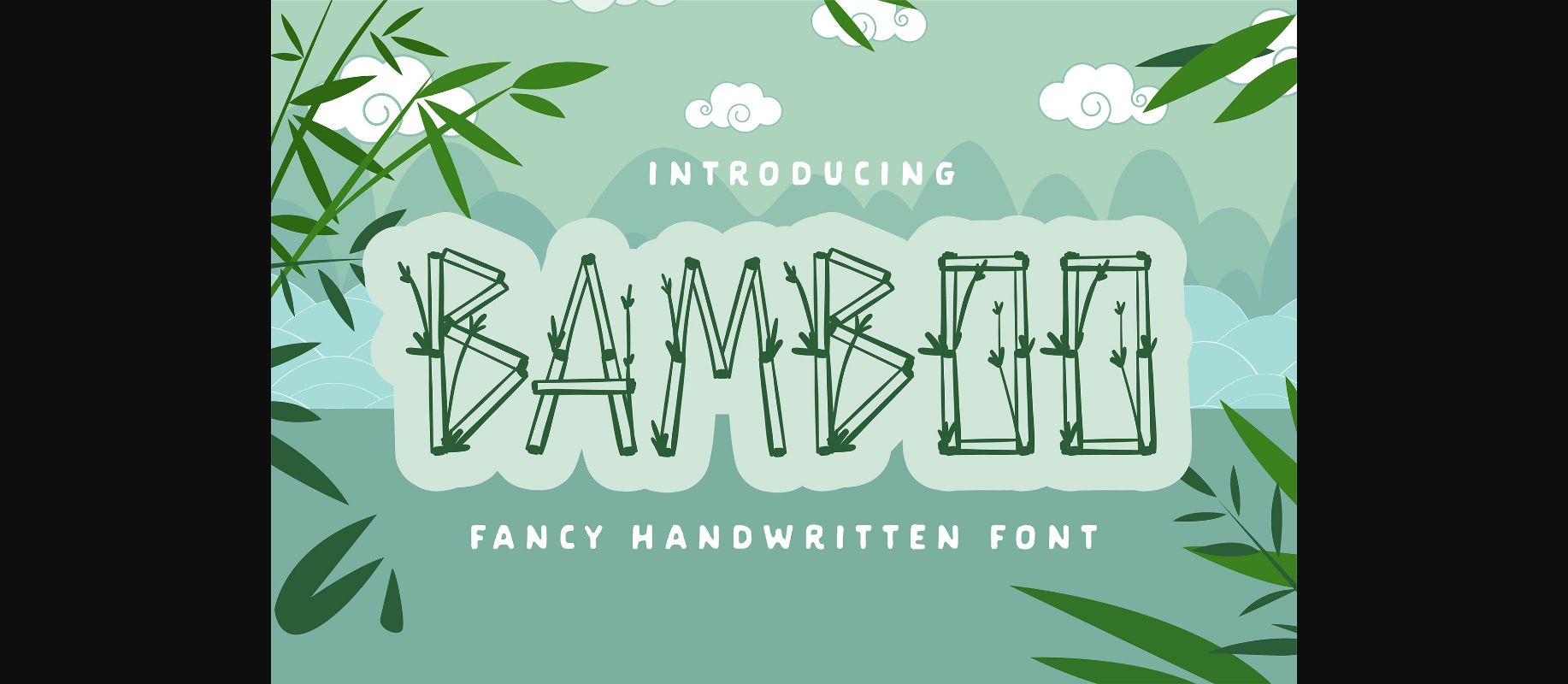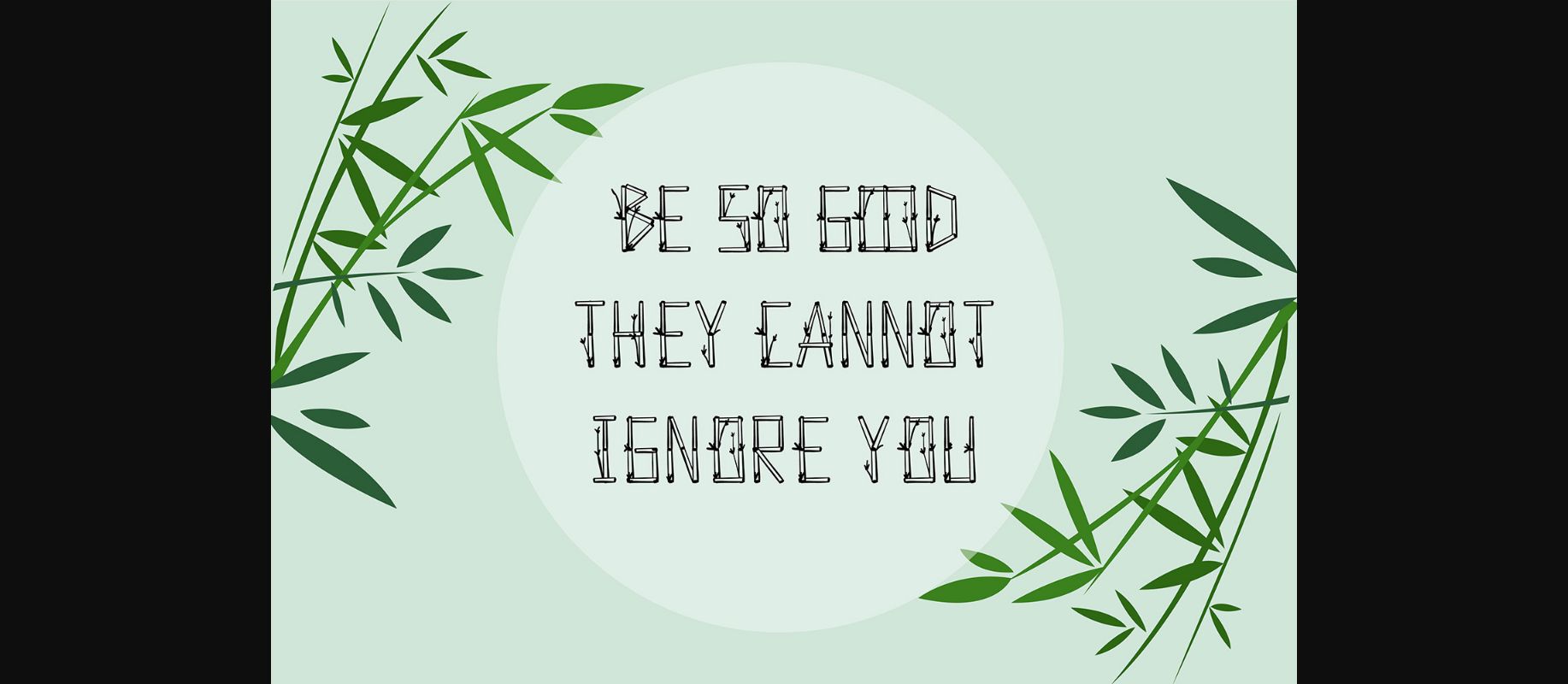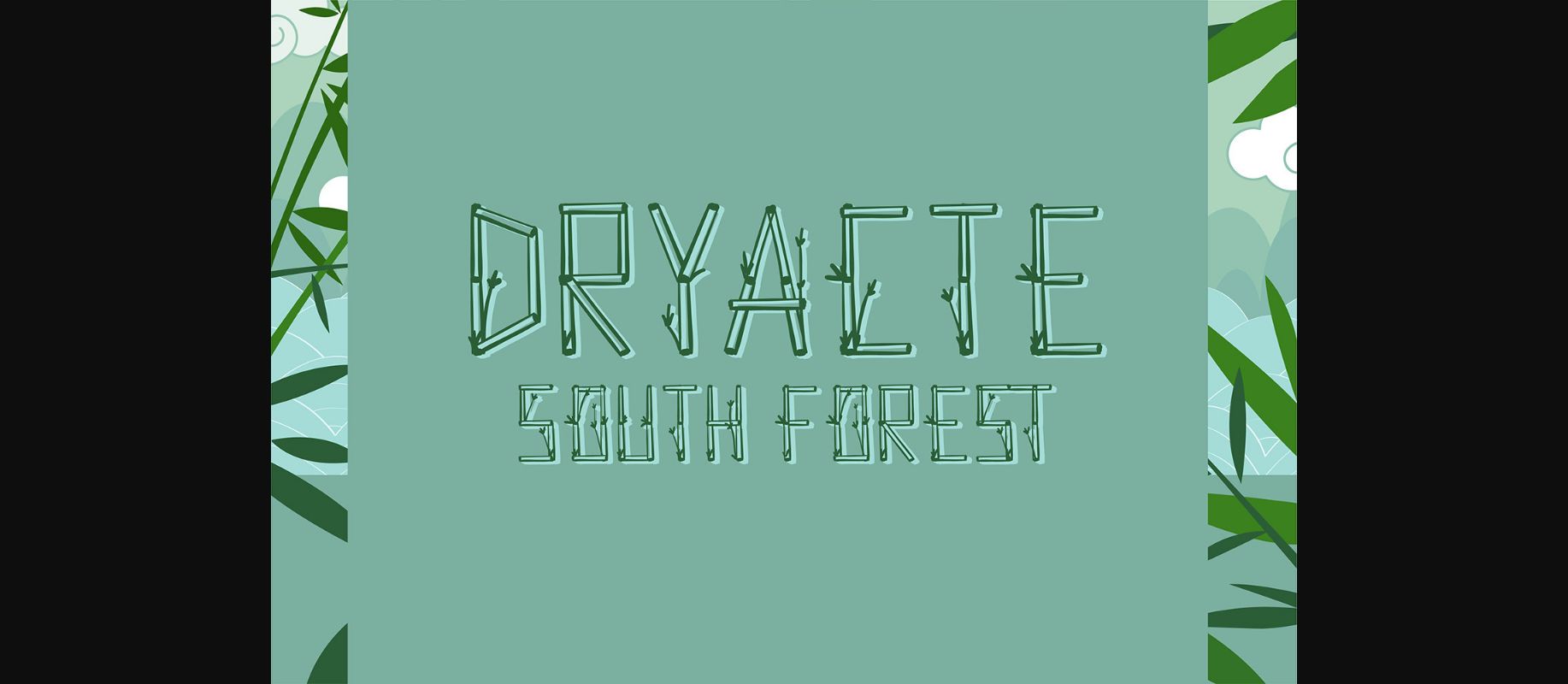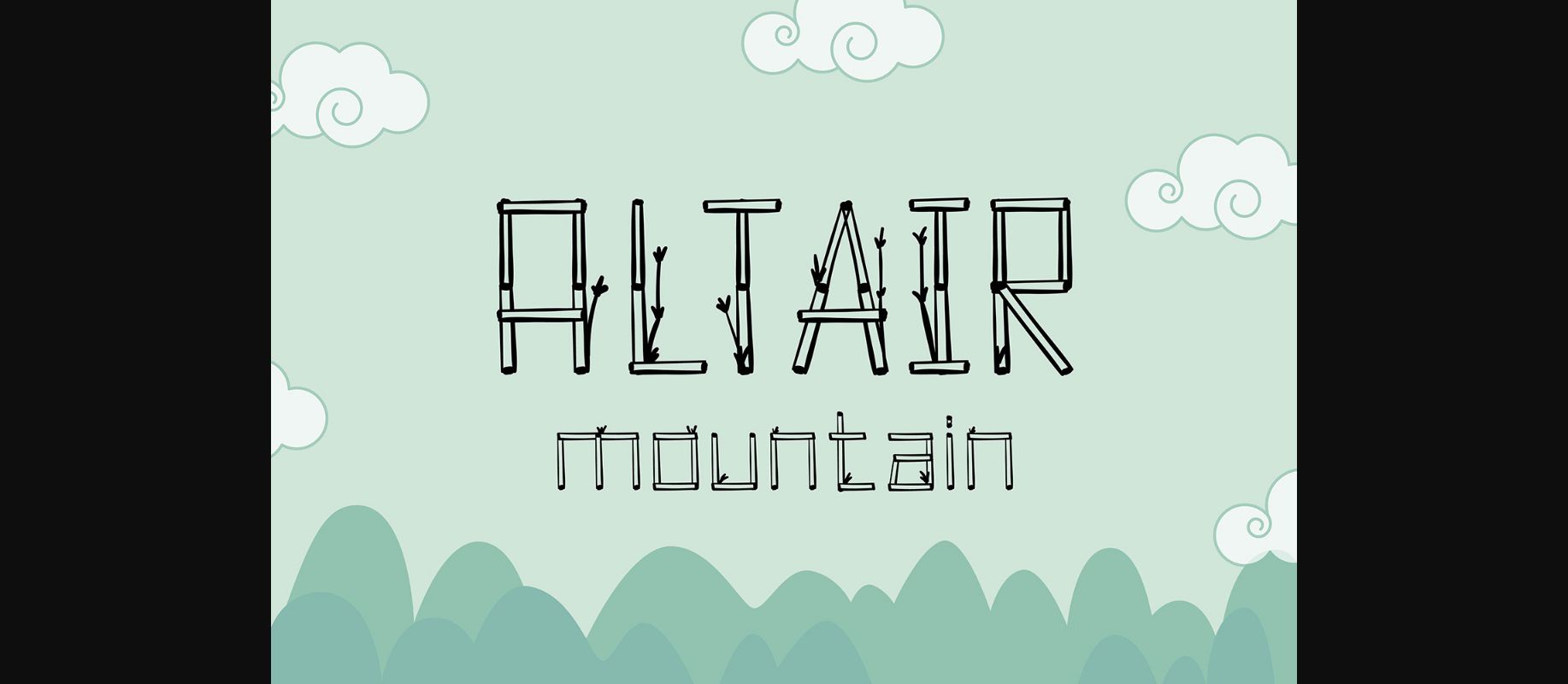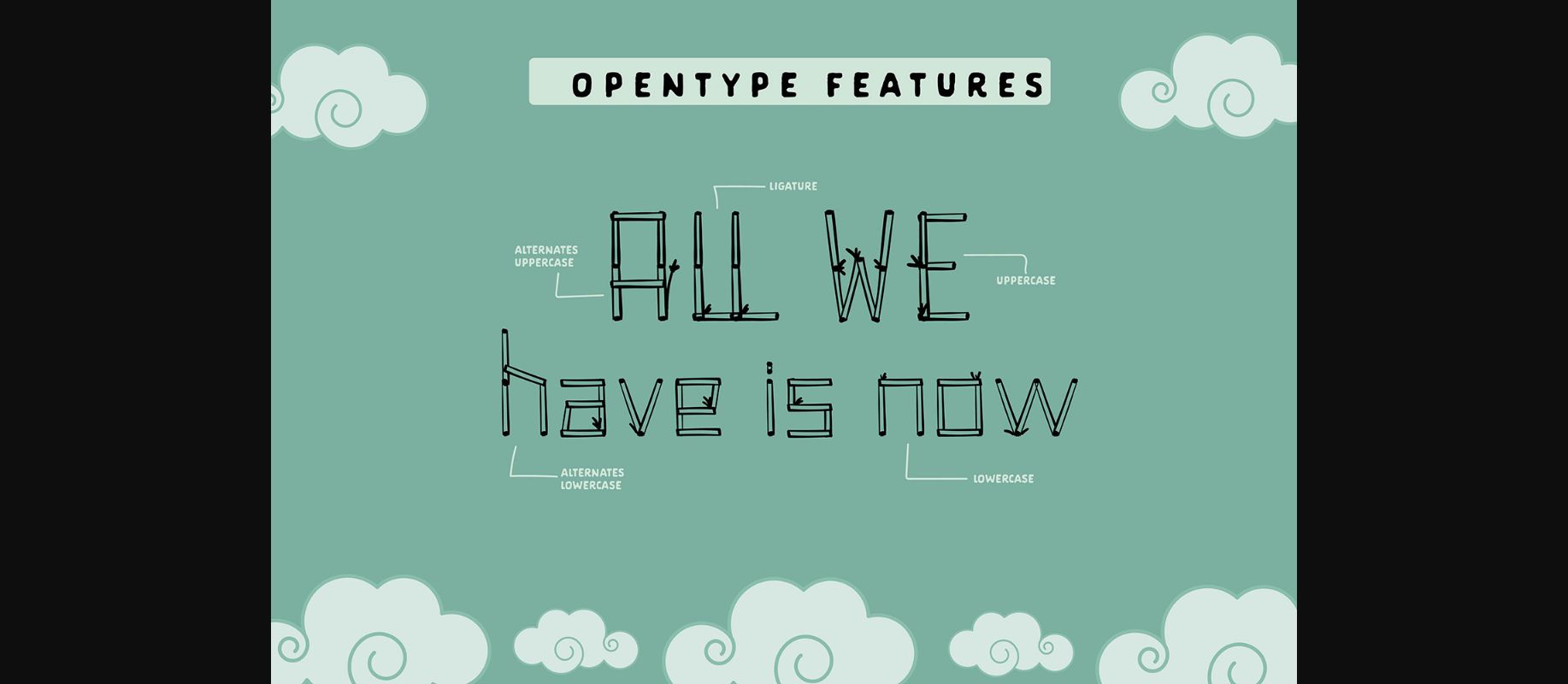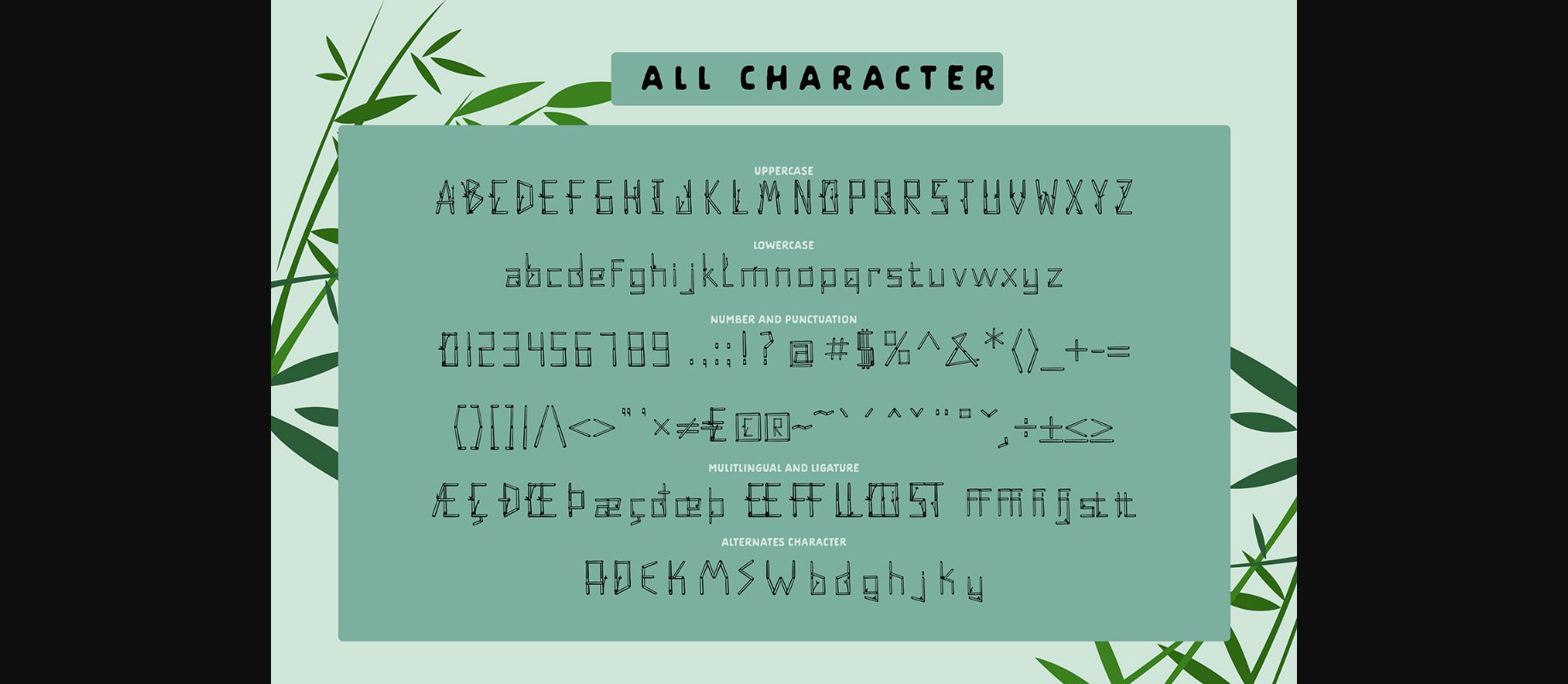
Bamboo is a playful decorative font perfect for greeting cards, branding materials, quotes, posters, and many more! Add it to your most creative designs and make them stand out!